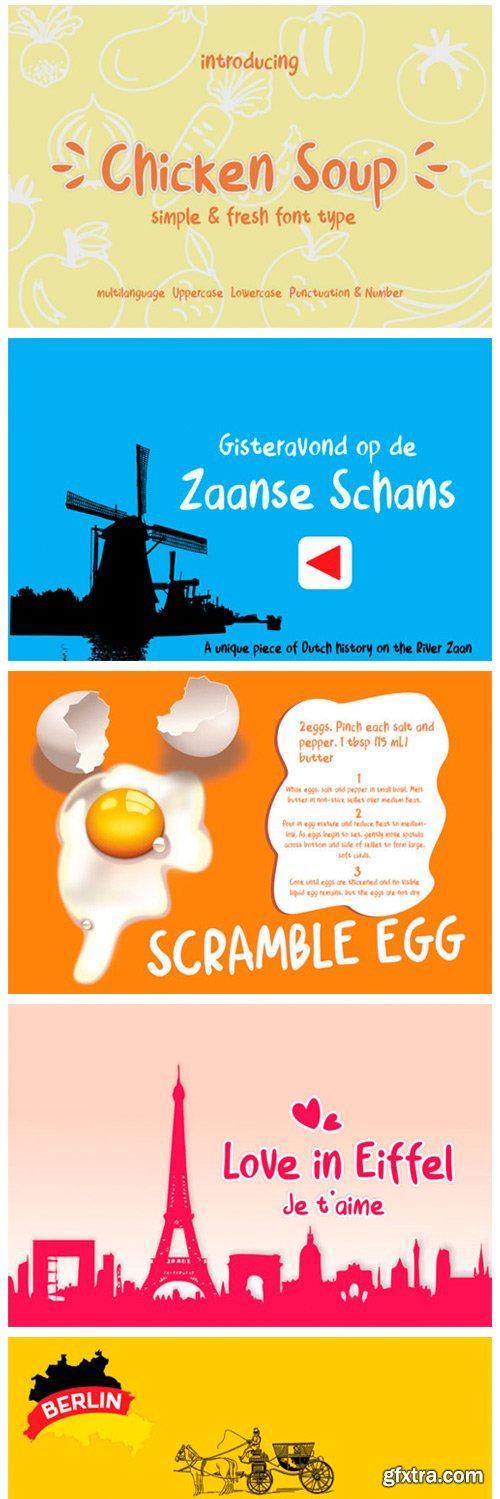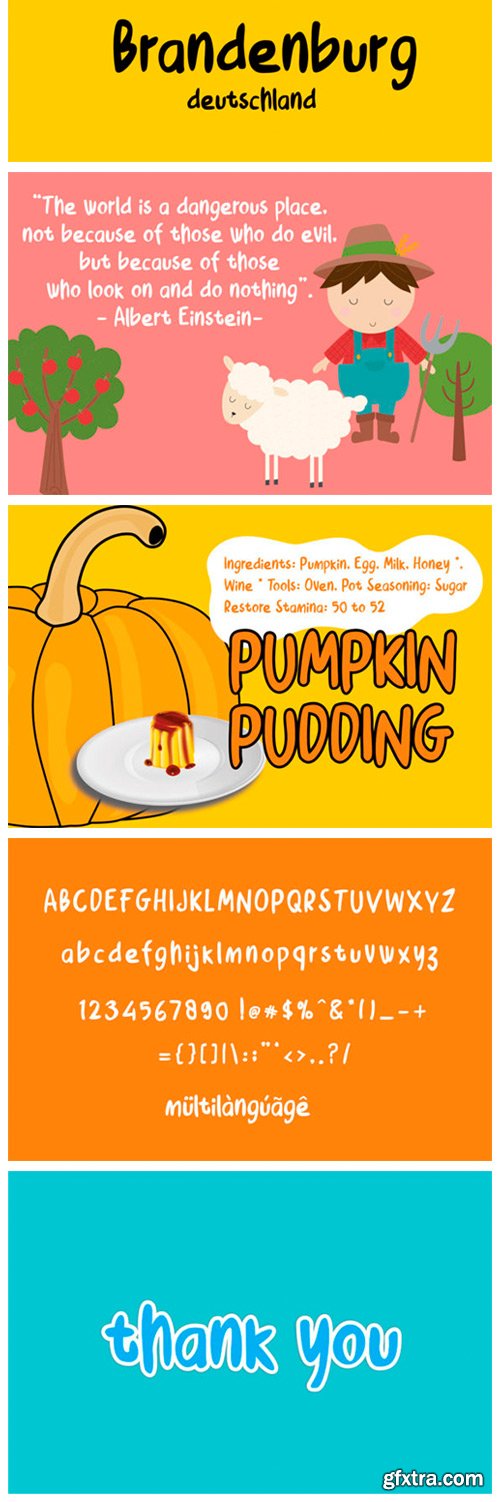
Chicken Soup Font
Chicken Soup is a simple and cheerful display font. It brings cute soup-themed vectors to add to your projects! Use this unique font to bring any DIY project to life!